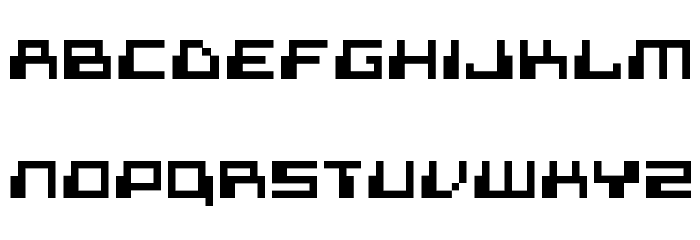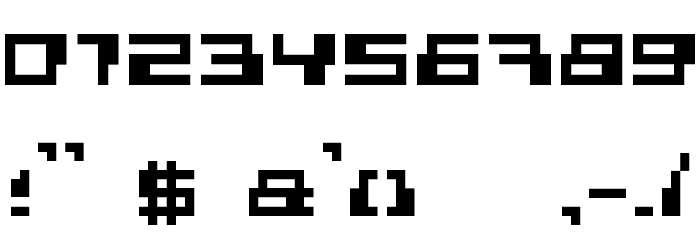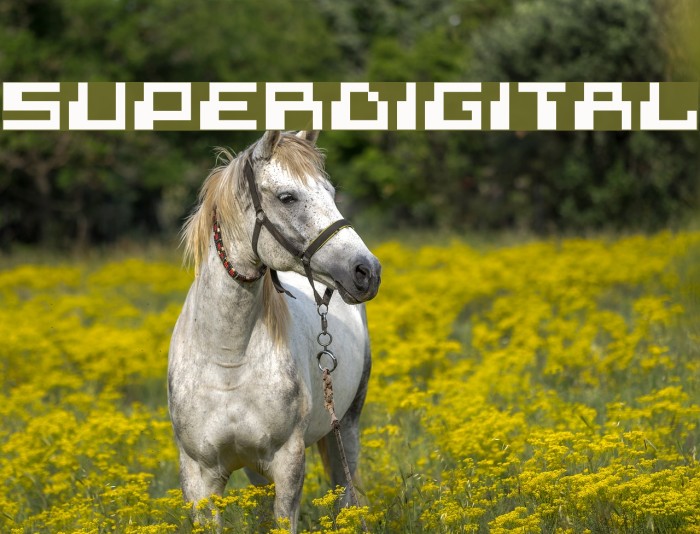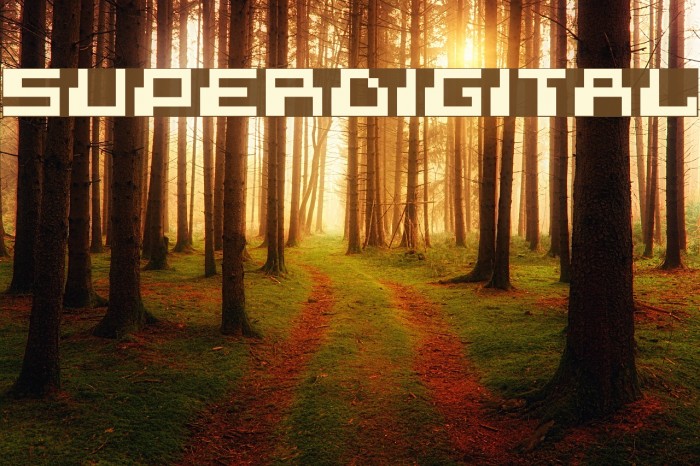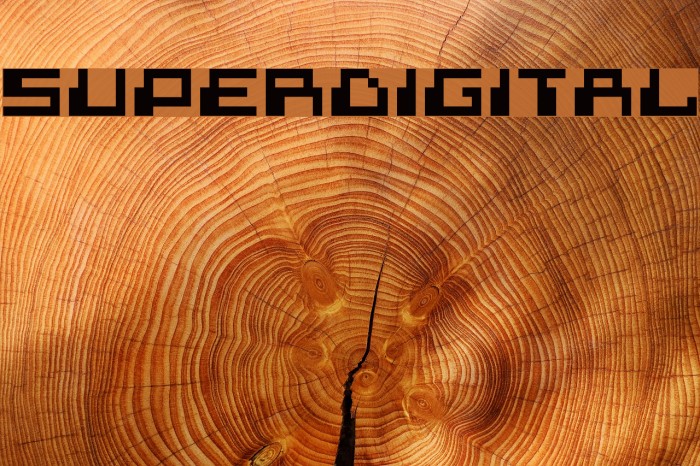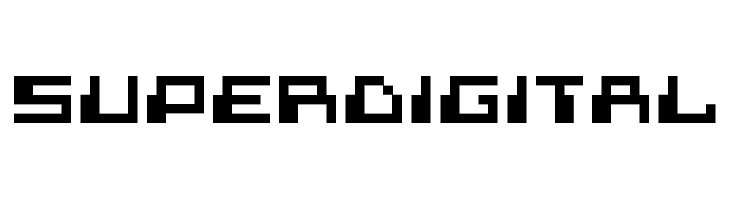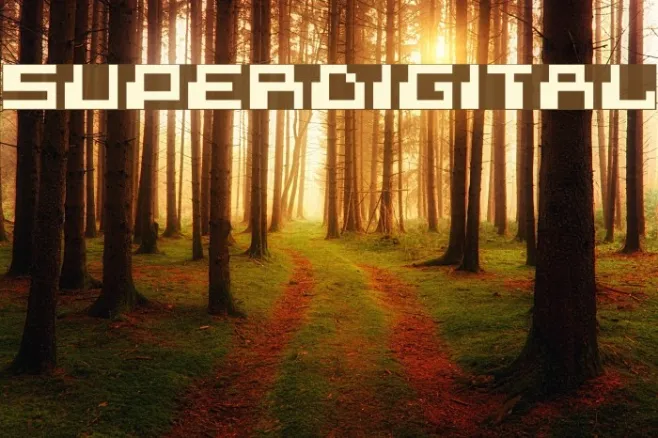
superdigital Font
This font is a bold, pixelated typeface that embodies a digital or retro gaming aesthetic. Its blocky, geometric shapes are reminiscent of early computer graphics and arcade games, making it ideal for projects that aim to evoke nostalgia or a tech-savvy vibe. The characters are uniformly structured with sharp angles and straight lines, providing a consistent and cohesive appearance across both uppercase and lowercase letters. The numerals and special characters maintain the same pixelated style, ensuring a unified look throughout. This font's distinct style is perfect for digital-themed designs, video game titles, or any creative project that requires a futuristic or retro touch.
A bold, pixelated typeface with a retro digital aesthetic.
- Proposed Projects: Ideal for video game titles, digital art projects, tech-themed posters, and retro-inspired designs.
- Overall Style: Retro, Digital